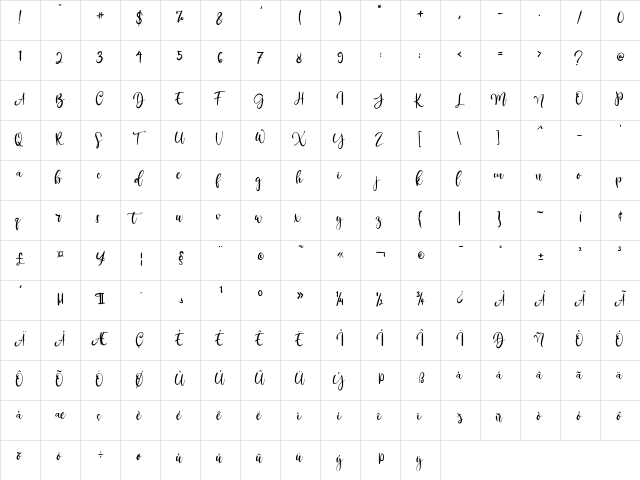
Rantliyer Regular Font Preview
Rantliyer Regular
Rantliyer Regular Font Details
Design Context for Rantliyer Typeface
Rantliyer is a composed and adaptable typeface that performs quietly and consistently across a wide range of design contexts.
Pro Tip: Pair Rantliyer with a font of contrasting weight or personality to build a more expressive typographic hierarchy.